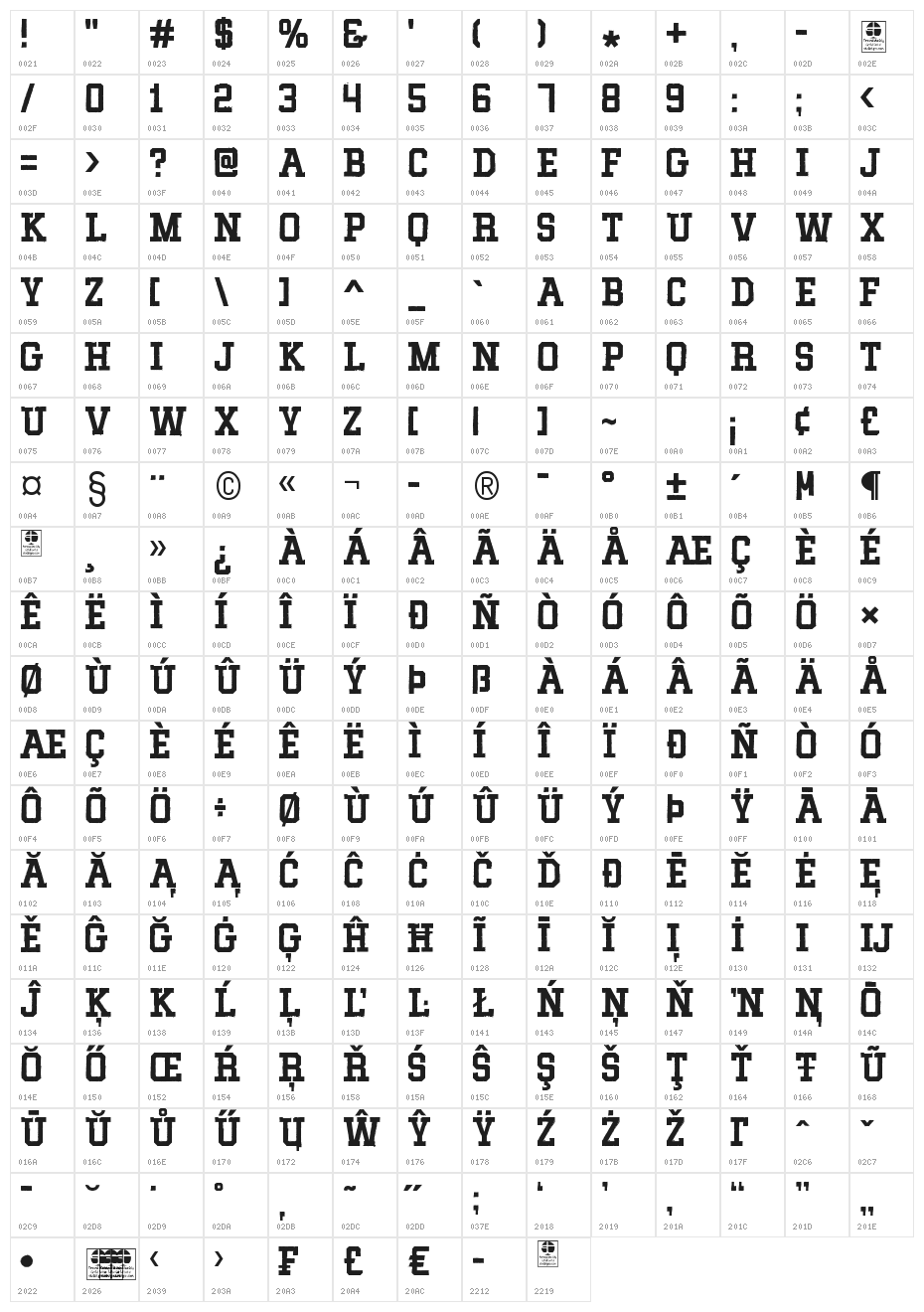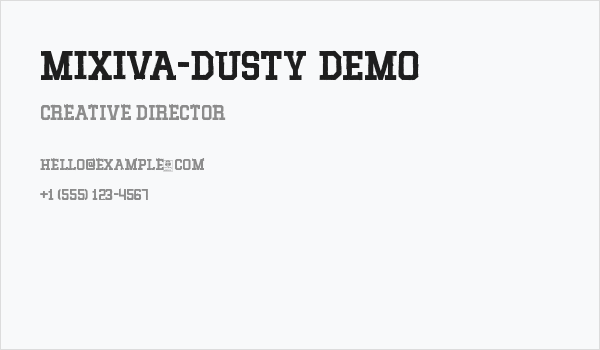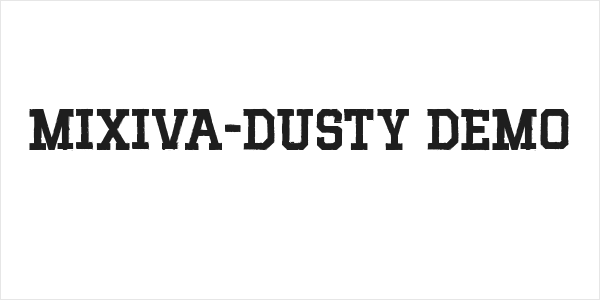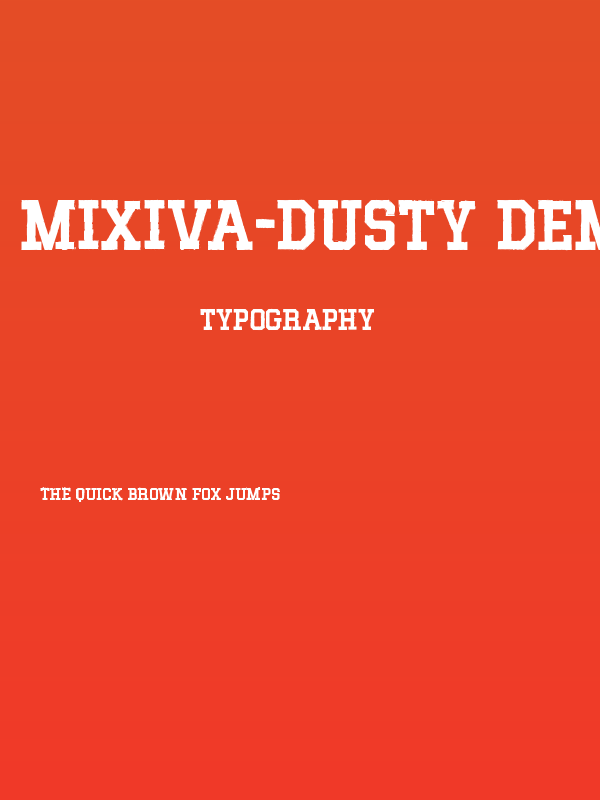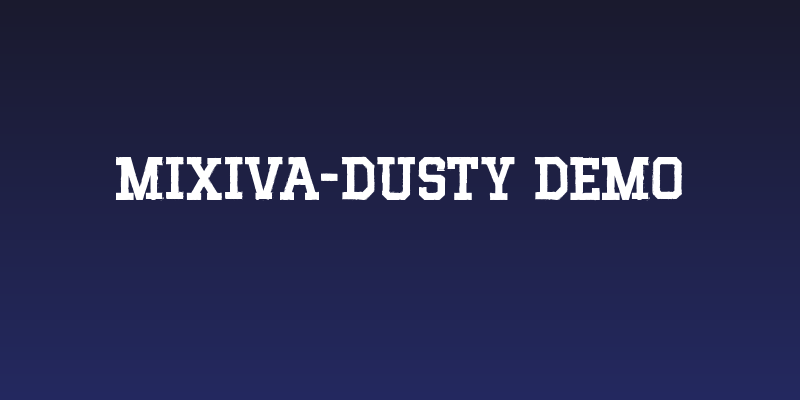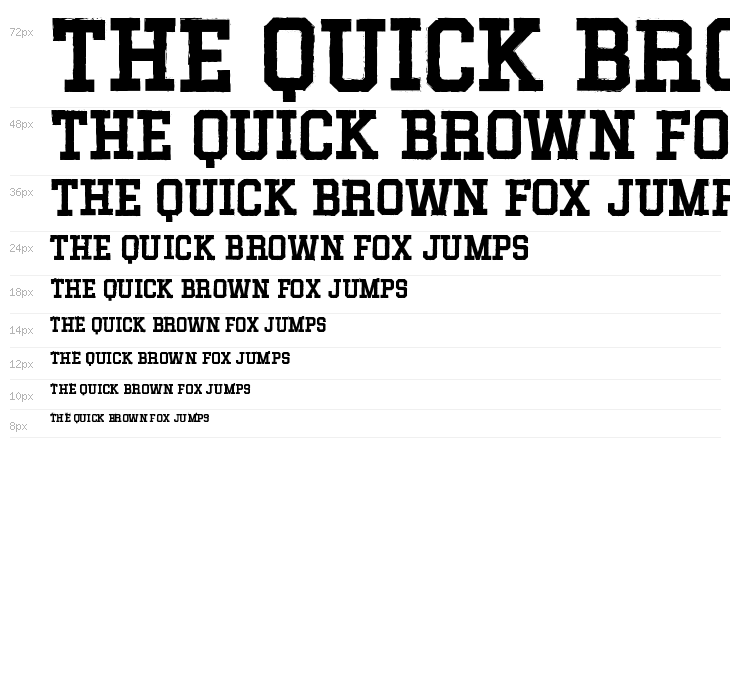
MIXIVA-DUSTY demo Font
MIXIVA-DUSTY demo Description
This font features a bold, rugged style with a distressed texture, giving it a vintage and worn appearance. The uppercase letters are prominent and blocky, with a consistent height and width, creating a strong visual impact. The lowercase letters maintain the same distressed aesthetic, complementing the uppercase set. Numbers are equally bold and textured, ensuring they stand out in any design. The special characters, including punctuation and symbols, follow the same design principles, making them cohesive with the rest of the font. This font is ideal for projects that require a rustic or industrial feel, such as posters, branding, or packaging.